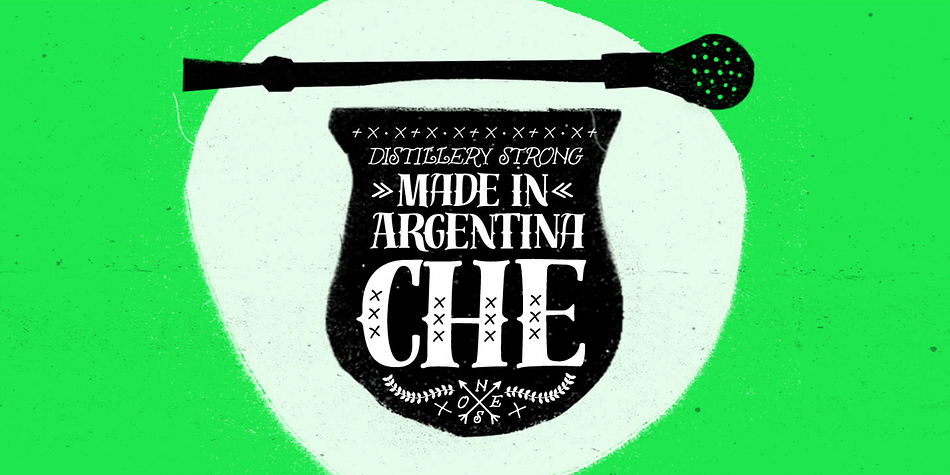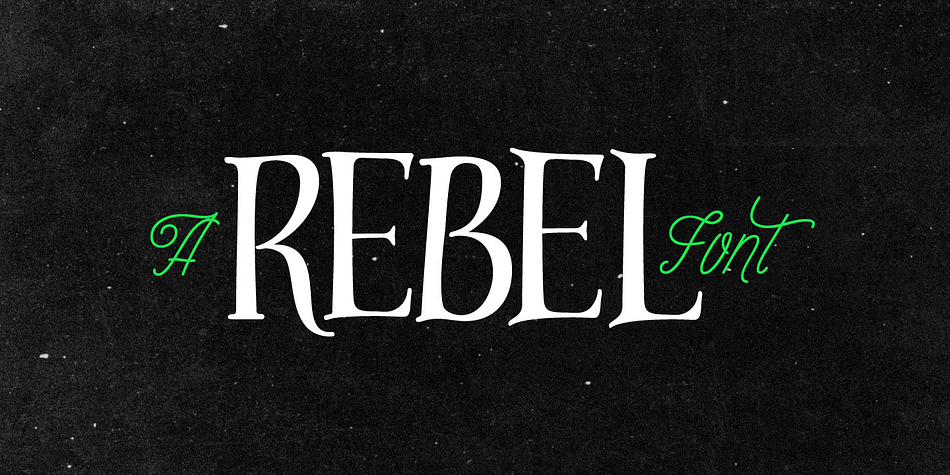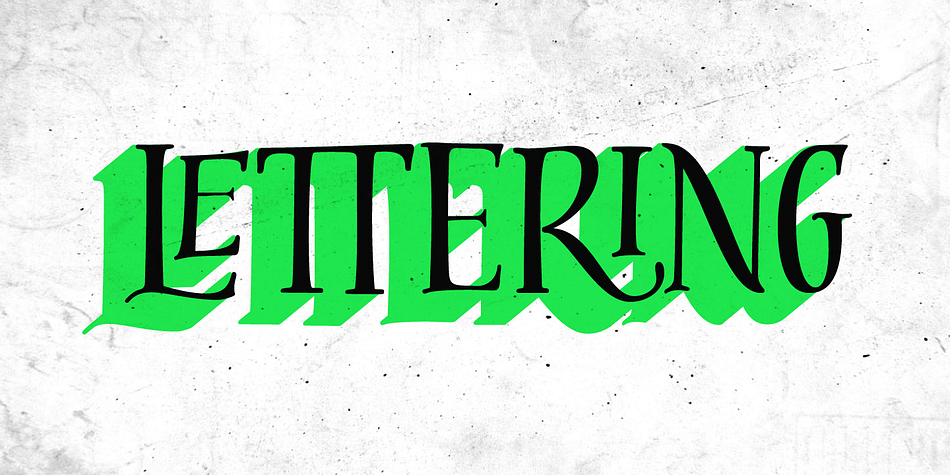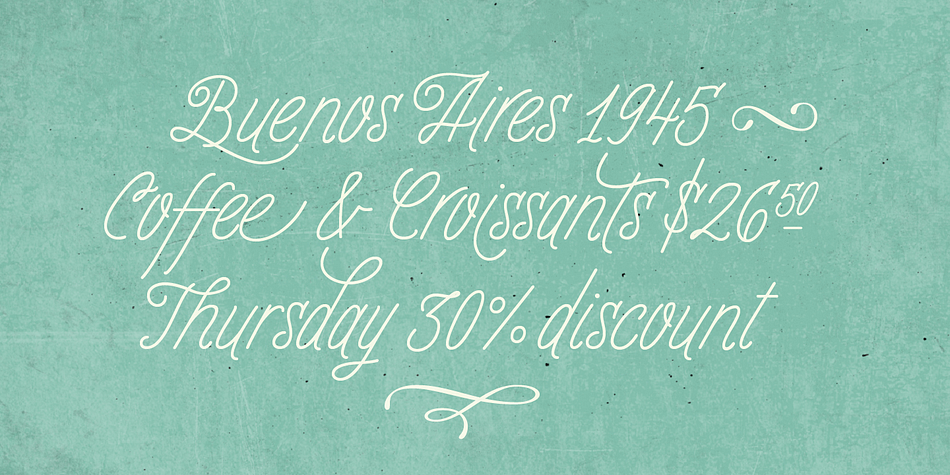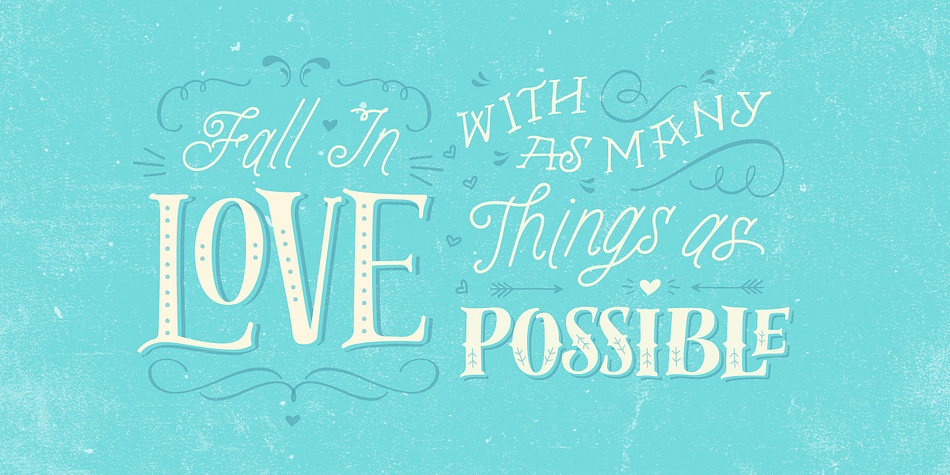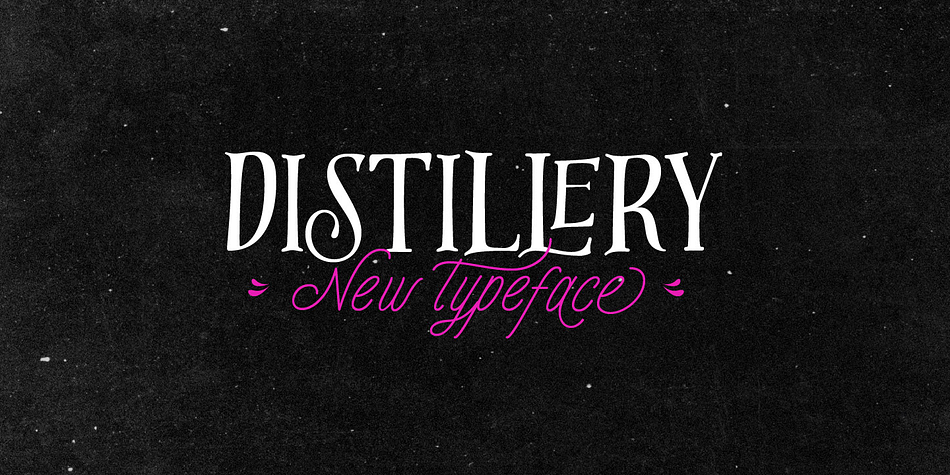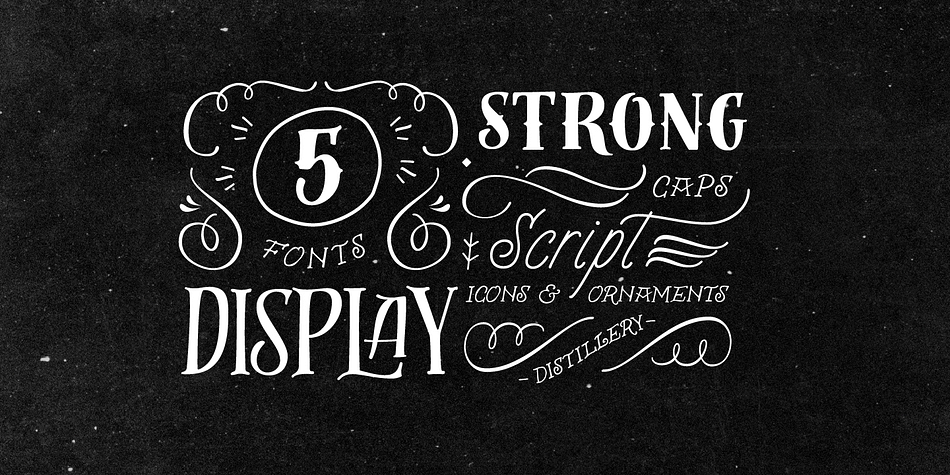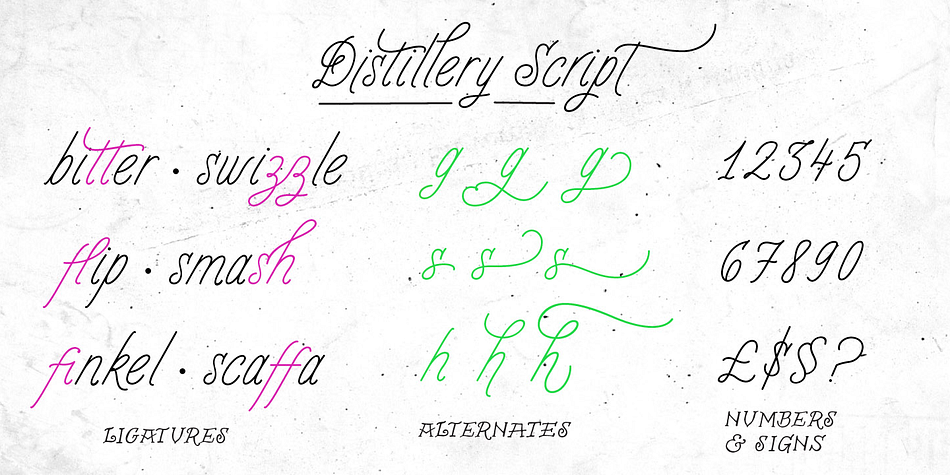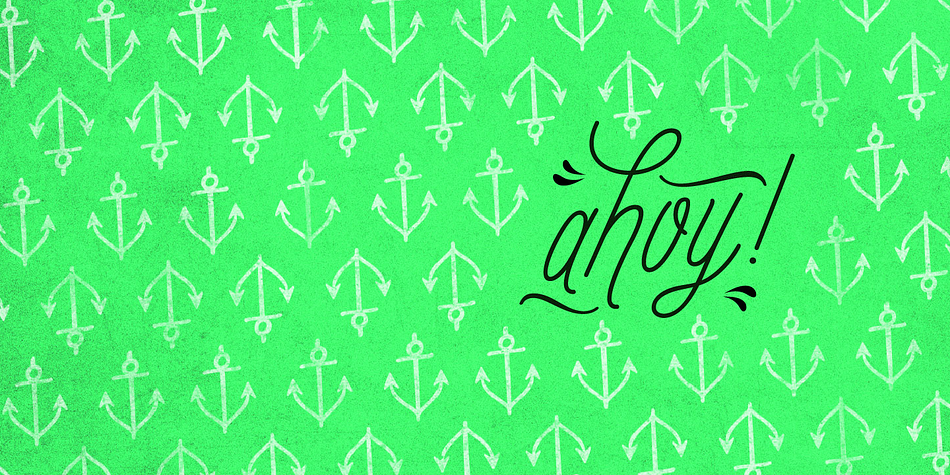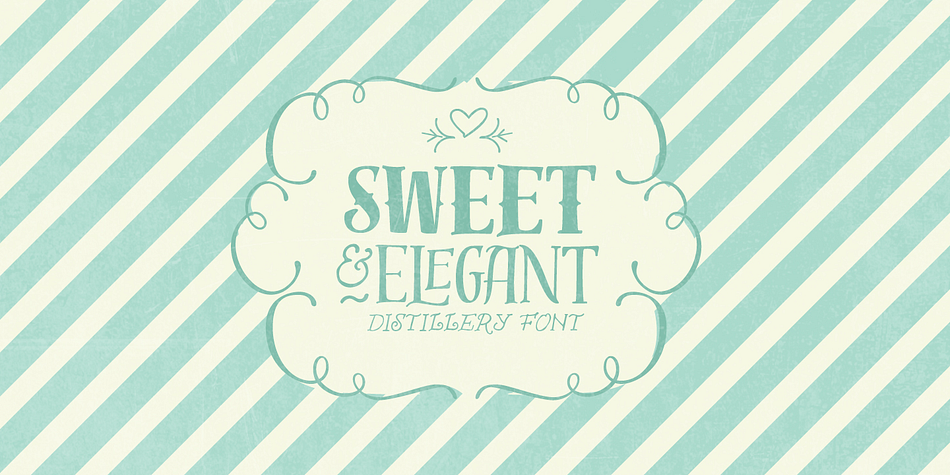
Designed by Carolina Marando and Alejandro Paul, Distillery is a multiple classification font family. This typeface has five styles and was published by Sudtipos.
The Distillery Set is a collection of 5 fonts: Display, Strong, Script, Caps, and Icons. The fonts’ influences are in lettering from different eras and styles. They reflect forms from the Arts & Crafts movement, the Roman majuscules, artistic printing, traditional tattoo lettering, sing painting and showcards from the early XX century and some typography trends started from 1970s America and being used today like chalkboard art or handmade labels in packaging. This is collection of fonts that strongly hints of the spontaneous ways of pencil on paper, the dynamic rebellion and simultaneous imperfection and elegance of DIY.
This set contains a wide range of characters, including alternates, ligatures, variations on ascenders and descenders, initials and terminals, icons and ornaments, providing endless application possibilities. The different fonts can be used individually, but of course it is their combination in use that creates the magic.
The Distillery Set was designed by young talent Carolina Marando. Alejandro Paul produced and expanded the digital work.